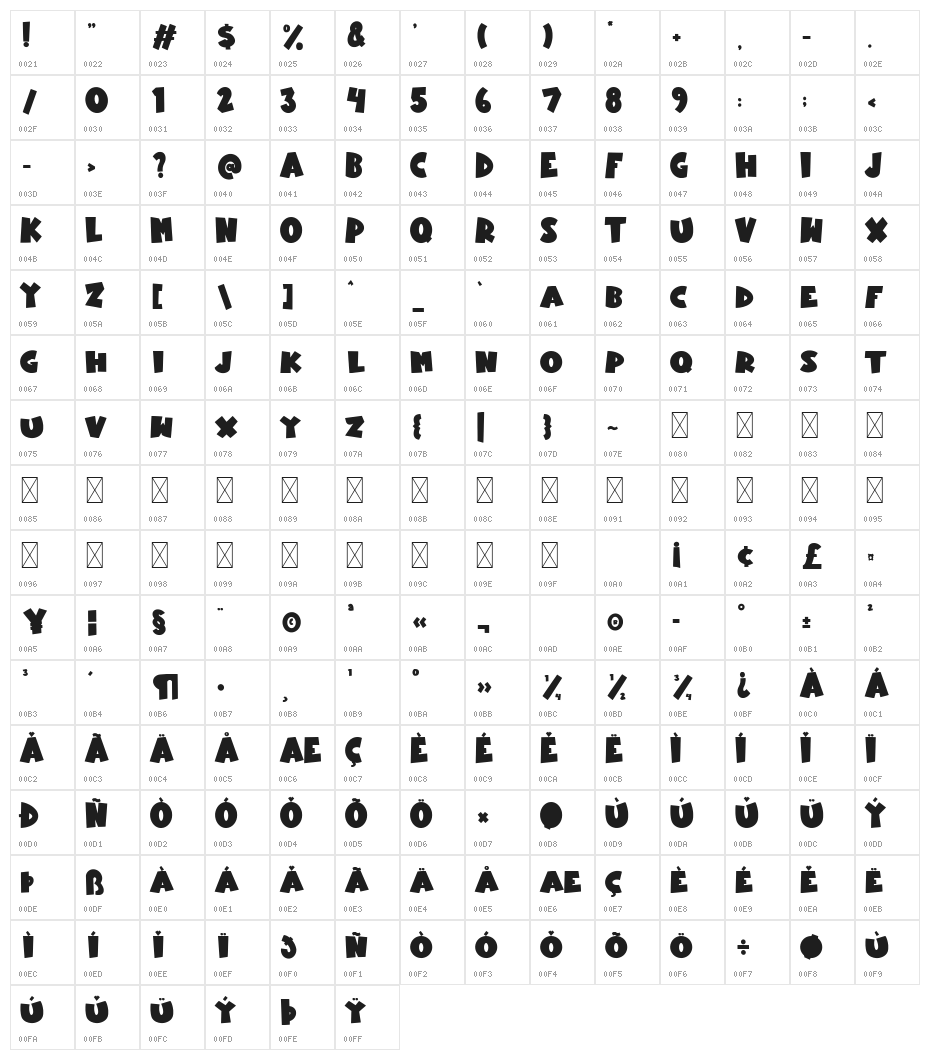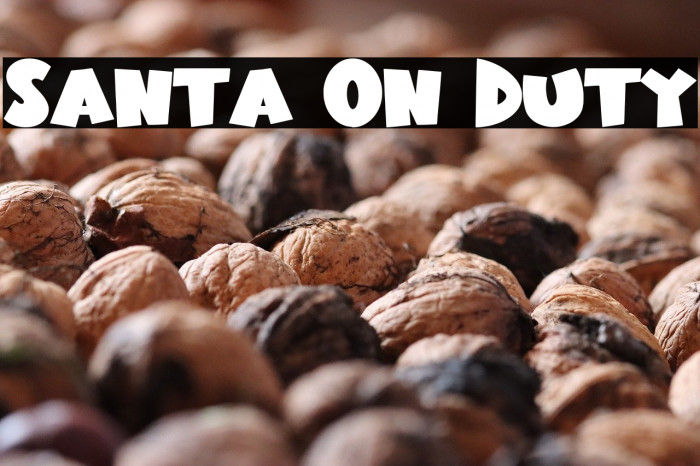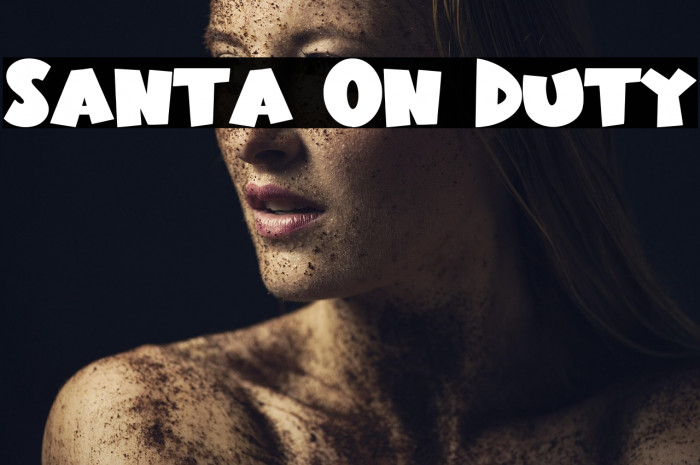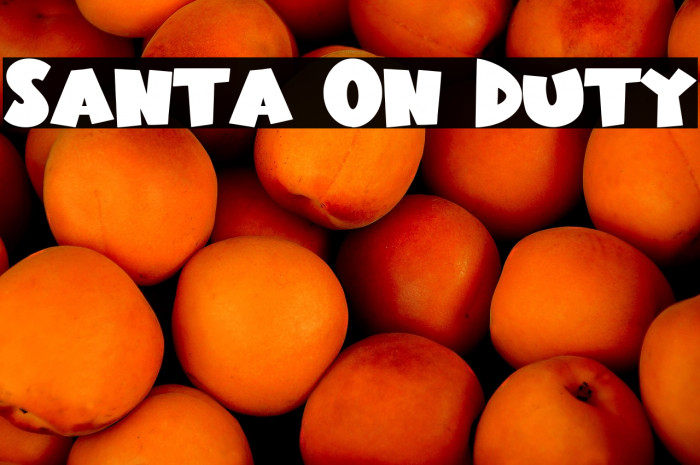
Santa On Duty Font
Santa On Duty Description
This playful and bold font features a whimsical, chunky style with exaggerated curves and angles, giving it a lively and energetic appearance. The letters are slightly tilted, adding a sense of motion and fun. The font is highly legible due to its thick strokes and clear shapes, making it suitable for attention-grabbing designs. The numbers and special characters maintain the same playful aesthetic, ensuring consistency across all text elements. This font is perfect for projects that require a touch of humor and lightheartedness.
| Use Case | Headlines, Posters, Branding |
| Proposed Projects | Ideal for children's books, festive posters, playful branding, and party invitations. |